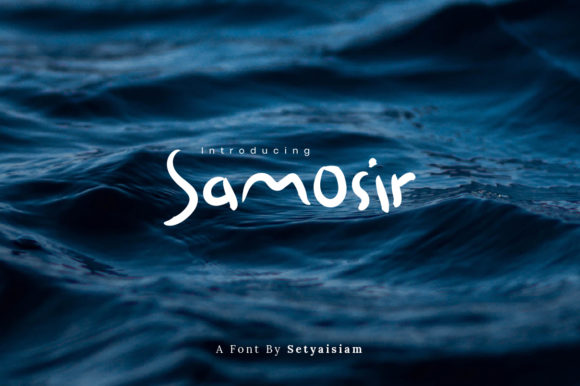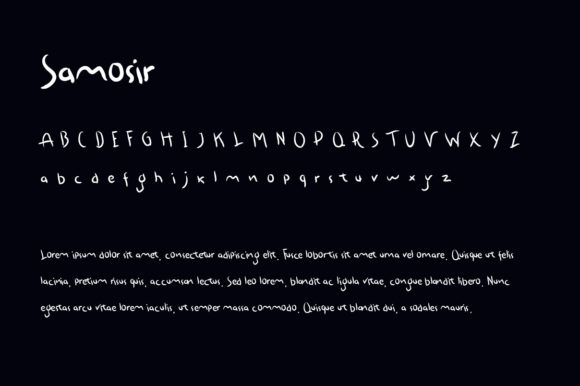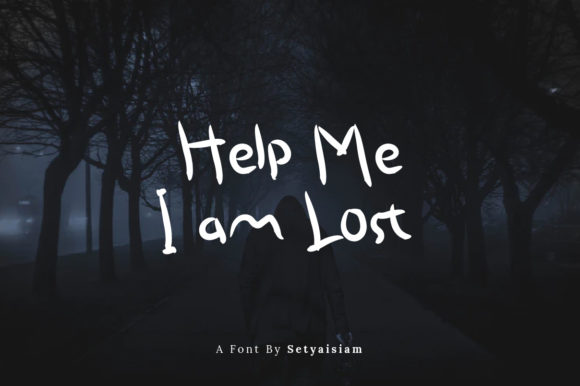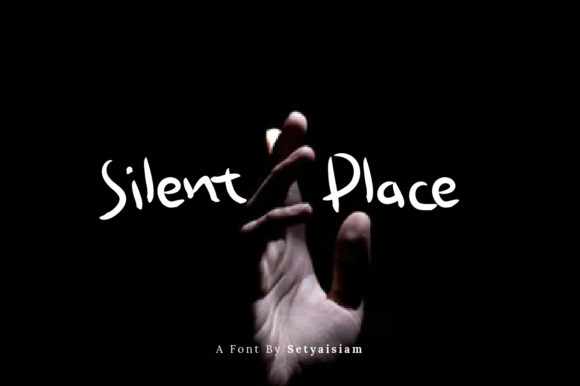
Samosir Font
About Samosir Font
Samosir is a modern script font, carefully handcrafted to become a true favorite. Its casual charm makes it appear wonderfully down-to-earth, readable and, ultimately, incredibly versatile.